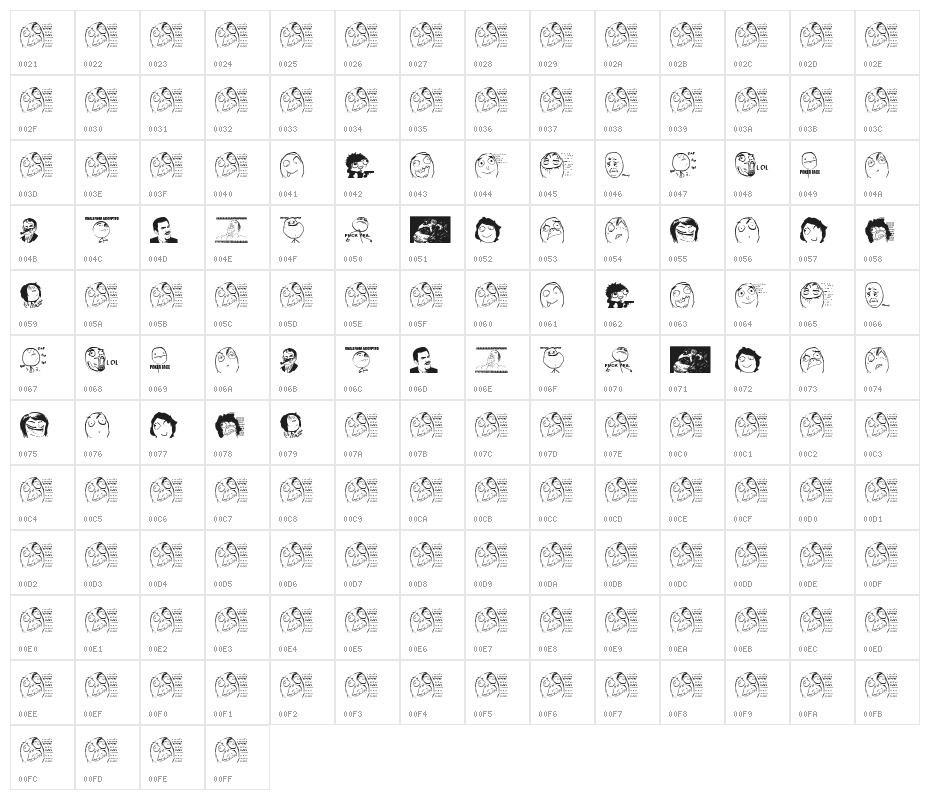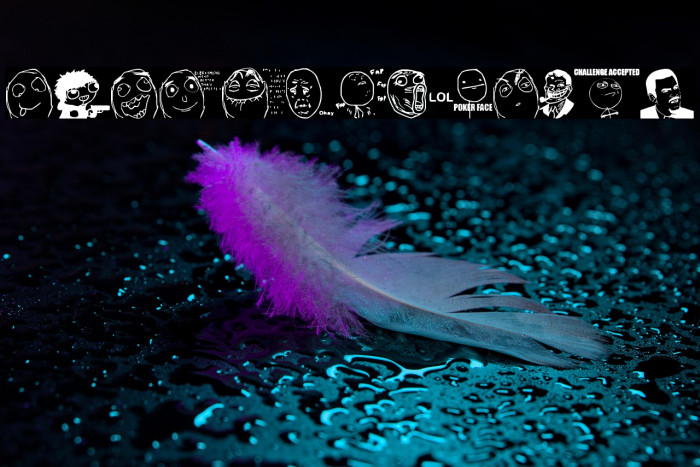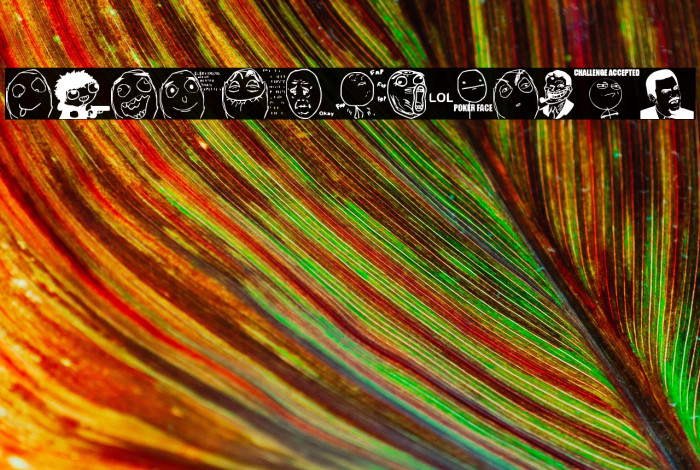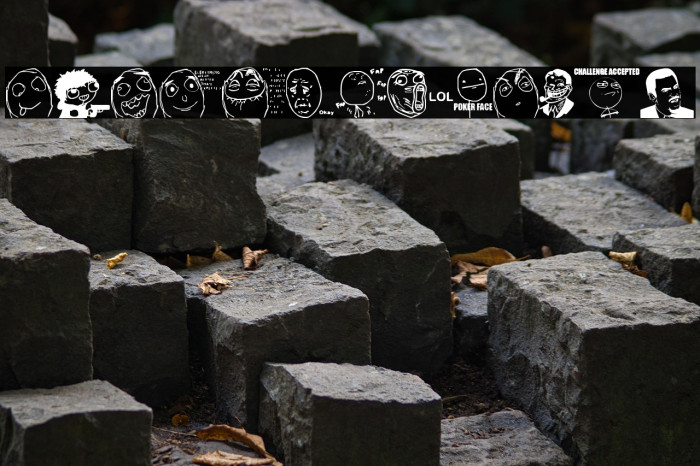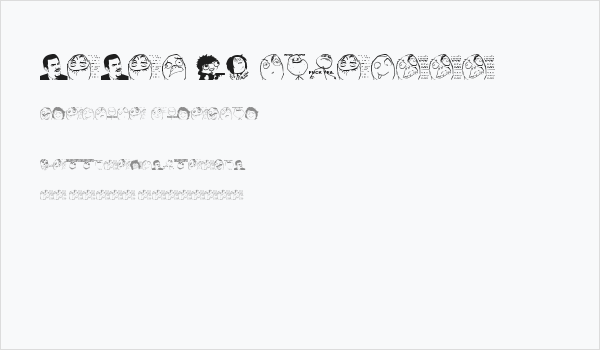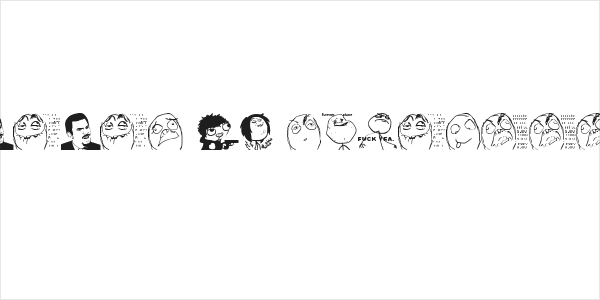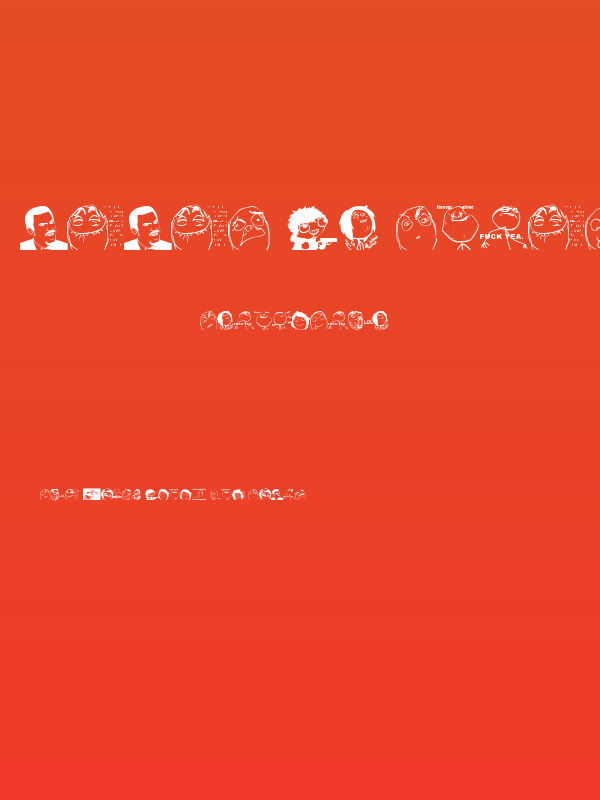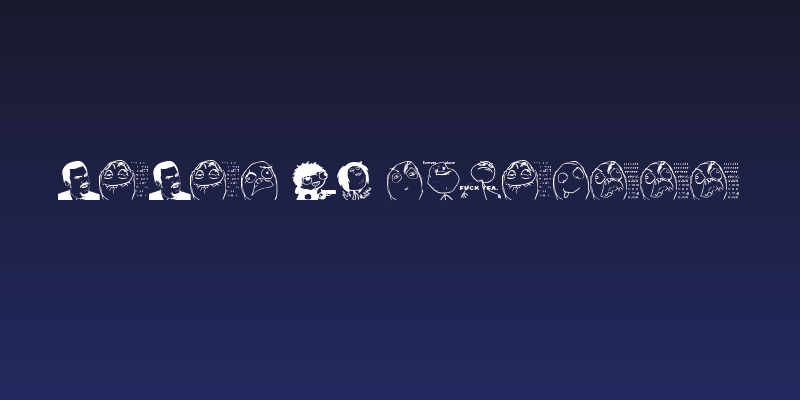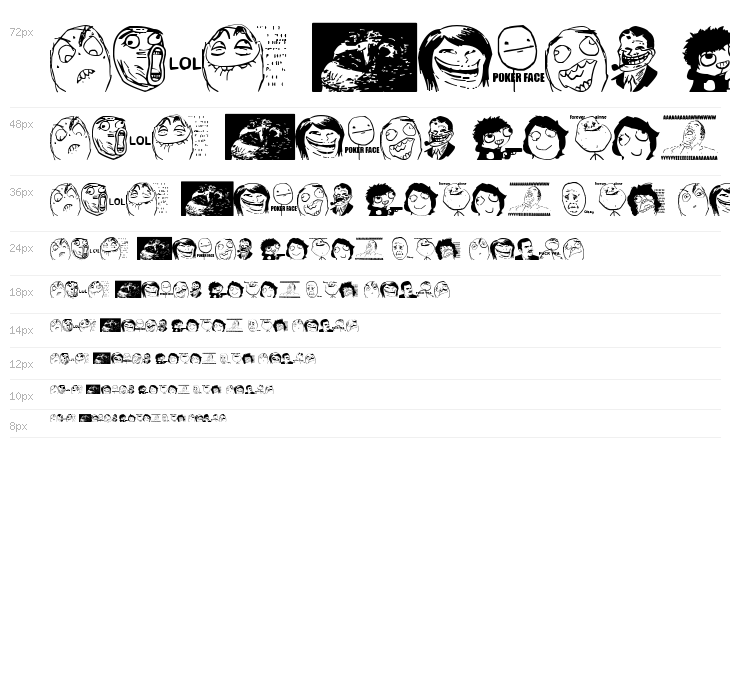
Memes by jopea302 Font
Memes by jopea302 Description
A decorative font composed entirely of popular internet meme faces and rage comic characters, each glyph representing a different expressive cartoon face or meme. The style is hand-drawn, sketchy, and highly expressive, with varying line thickness and exaggerated facial features.
| Overall Style | Decorative, Humorous, Hand-drawn |
| Use Case | Logos, Posters, Social media graphics, Comic art |
| Proposed Projects | Meme-themed posters, internet culture merchandise, humorous social media graphics, novelty t-shirts, comic strips. |